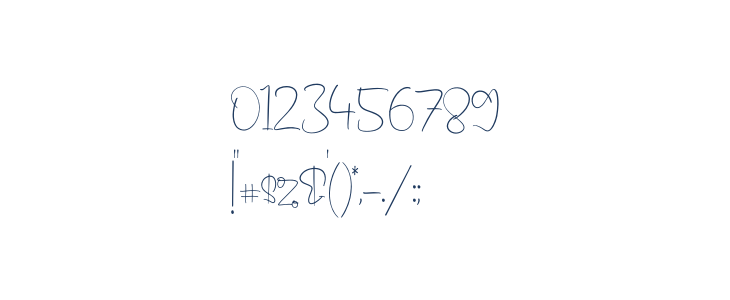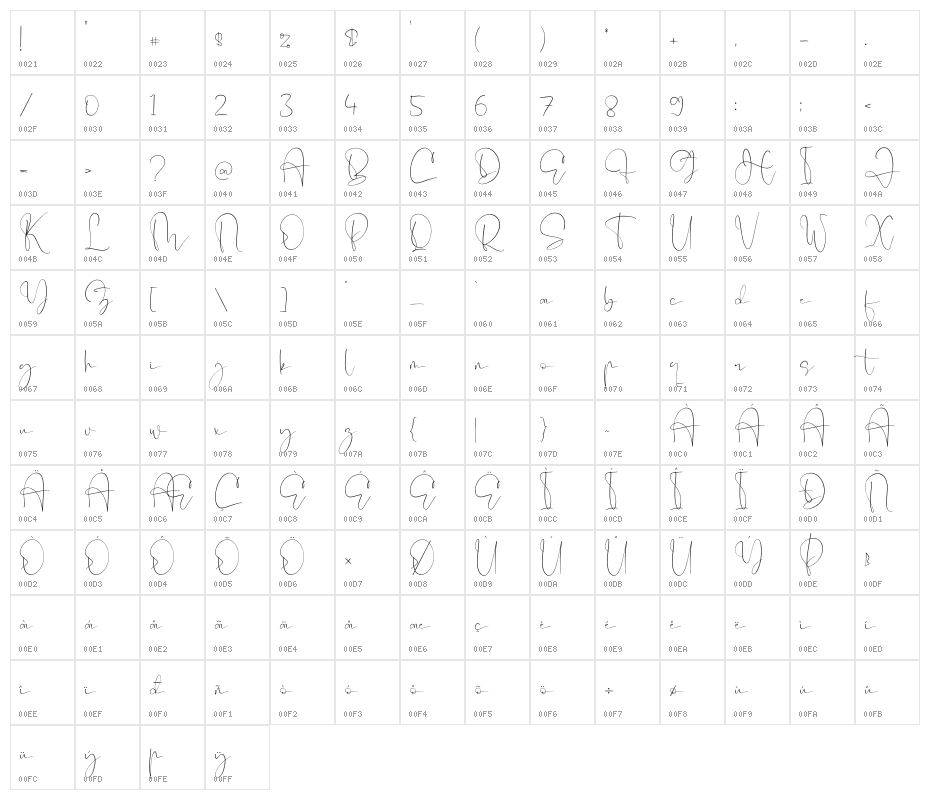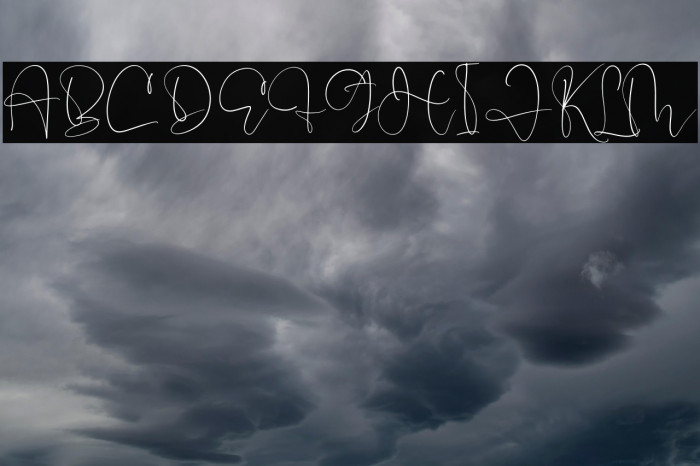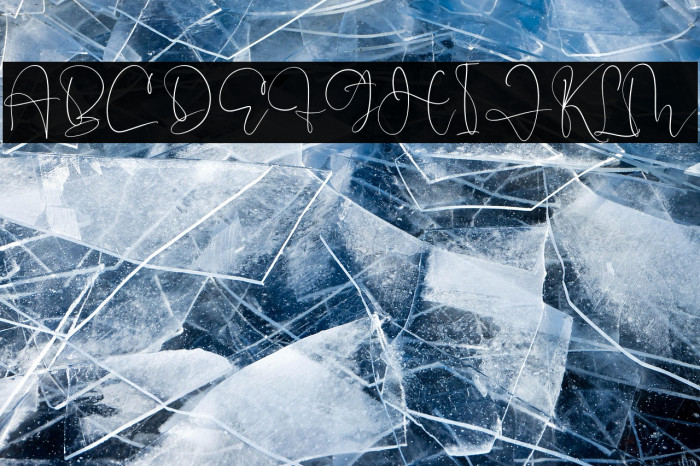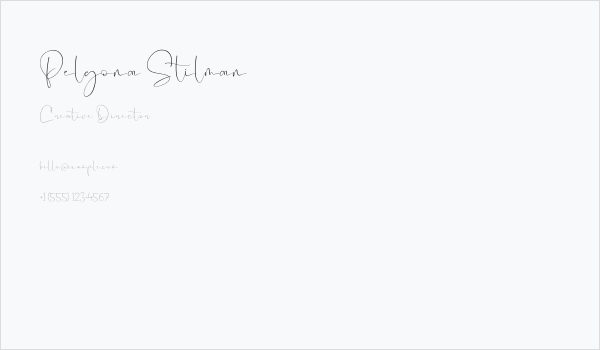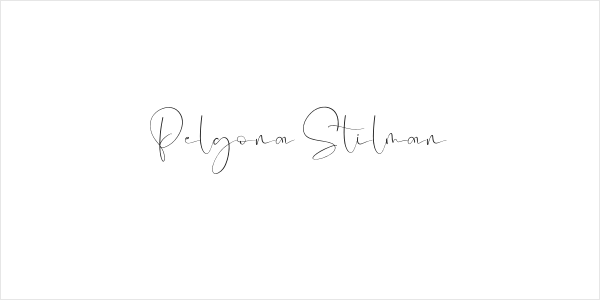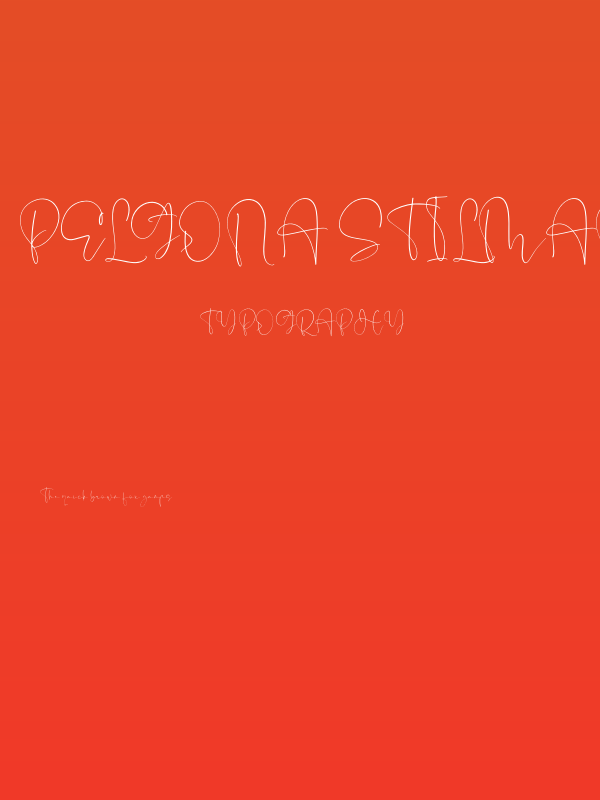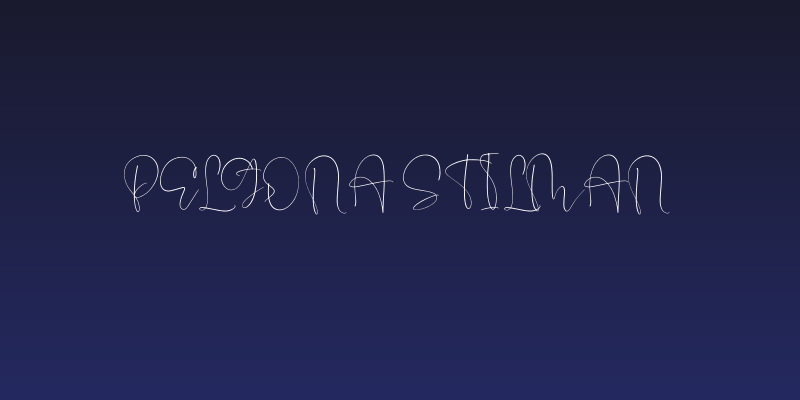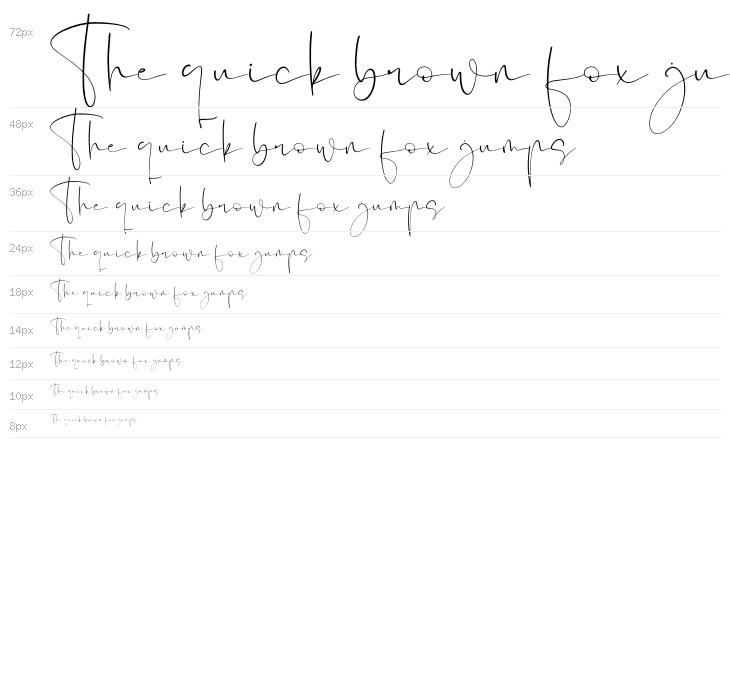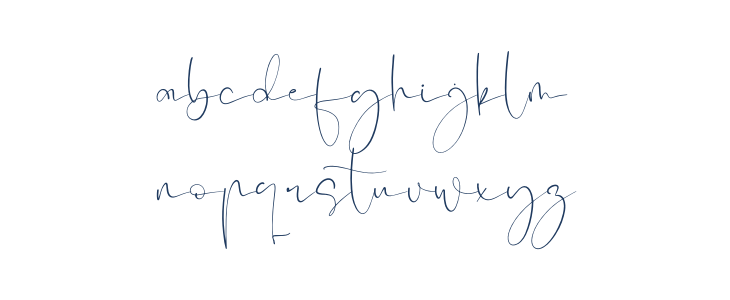
Pelgona Stilman Font
Pelgona Stilman Description
This elegant script font features a flowing, cursive style with delicate, thin strokes that give it a sophisticated and graceful appearance. The letters are interconnected with smooth, sweeping lines, creating a sense of fluidity and movement. The uppercase letters are ornate and decorative, while the lowercase letters maintain a consistent, flowing form. The numerals and special characters are designed to complement the overall aesthetic, maintaining the same delicate and airy feel. This font is perfect for projects that require a touch of elegance and refinement.